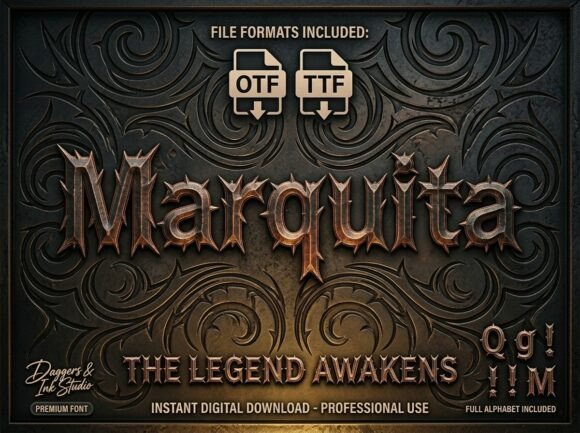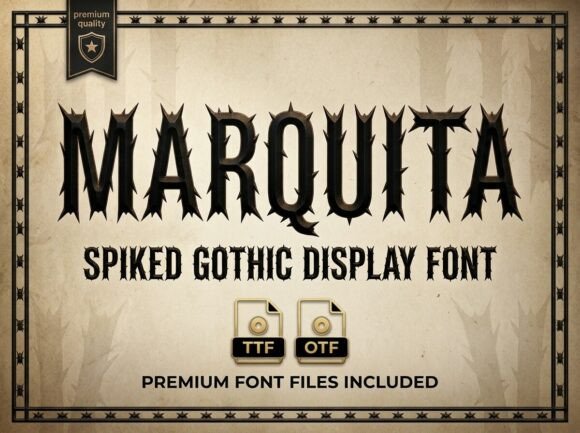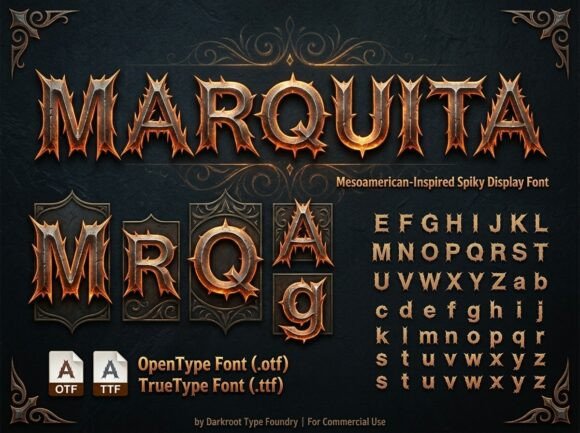
Introduction to Marquita Font
Imagine the moment when your creative project finally comes to life – a symphony of colors, textures, and typography that transports your audience to a world of wonder. As a designer, you know that the right font can make all the difference. That’s where Marquita Font comes in, a “Marketplace Exclusive” fantasy display font that’s sure to leave a lasting impression.
With its sharp, thorn-like terminals and stunning gold-etched texture, Marquita Font is the epitome of high-fantasy lore and epic storytelling. Its aggressive yet elegant silhouette commands attention, exuding a sense of ancient power and uncompromising luxury. Whether you’re designing a high-fantasy book cover, a cinematic title, or a premium heavy-metal logo, Marquita Font is a valuable design resource that’s sure to elevate your creative project to the next level.
As a free download, Marquita Font offers unparalleled quality and flexibility, allowing you to customize it to fit your unique vision. Its transparent background makes it easy to integrate into any design, while its high-quality texture adds a touch of sophistication and depth. With Marquita Font, the possibilities are endless, and we can’t wait to see how you bring it to life.
Key Features of Marquita Font
- High-quality design with a unique, hand-drawn style suitable for creative projects.
- Comes with a transparent background, allowing for easy customization and integration into various design elements.
- Unique characteristics include intricate details and subtle texture, adding depth and visual interest to any design.
- Perfect for designers seeking a high-quality, free design resource for their creative projects.
Honest Review: Marquita Font
I recently came across the Marquita Font, and I must say it’s been a great addition to my design arsenal. This high-quality font has a unique flair that’s perfect for creative projects that require a touch of elegance.
One of the standout features of the Marquita Font is its transparent background, which makes it incredibly versatile. I can use it on any design resource, from branding materials to digital art, without worrying about it overpowering the other elements.
- Transparent background for easy layering and blending
Of course, no font is perfect, and the Marquita Font has a few limitations. ⚠️ The font’s elegance can sometimes come across as too formal or stiff, which may not be suitable for every design project. Additionally, the font’s complexity can make it challenging to customize or edit.
Overall, I’m impressed with the Marquita Font, and I would highly recommend it to designers looking for a high-quality, versatile font for their creative projects. With its unique flair and transparent background, it’s a great addition to any design resource library.
Marquita Font: A High-Quality Design Resource for Creative Projects
The Marquita Font is a versatile and elegant font perfect for any creative project. With its transparent background and high-quality design, it’s an excellent addition to any design resource collection.
Tips for Getting the Most Out of Marquita Font
To get the most out of the Marquita Font, use it in conjunction with other design elements to create a cohesive and visually appealing design.
The Marquita Font is perfect for a variety of creative projects, including invitations, business cards, and social media graphics.